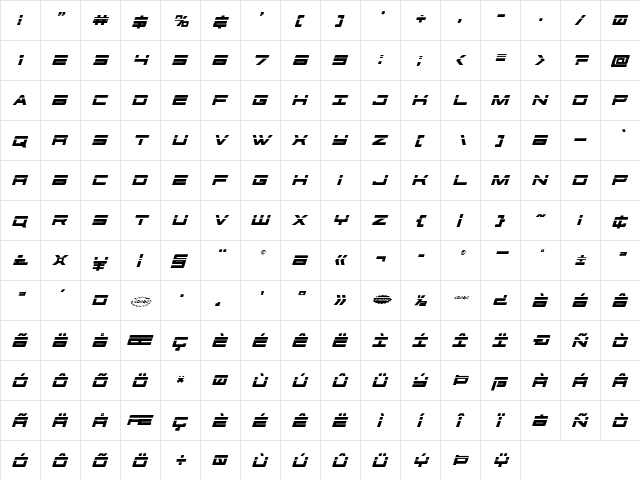
Future Forces Laser Italic Italic Font Preview
Future Forces Laser Italic Italic
Design Context for Future Forces Laser Italic Typeface
Future Forces Laser Italic has a distinctly futuristic character, with geometric precision and clean angles that feel at home in technology, gaming, and sci-fi contexts. The slanted form adds forward momentum and visual energy.